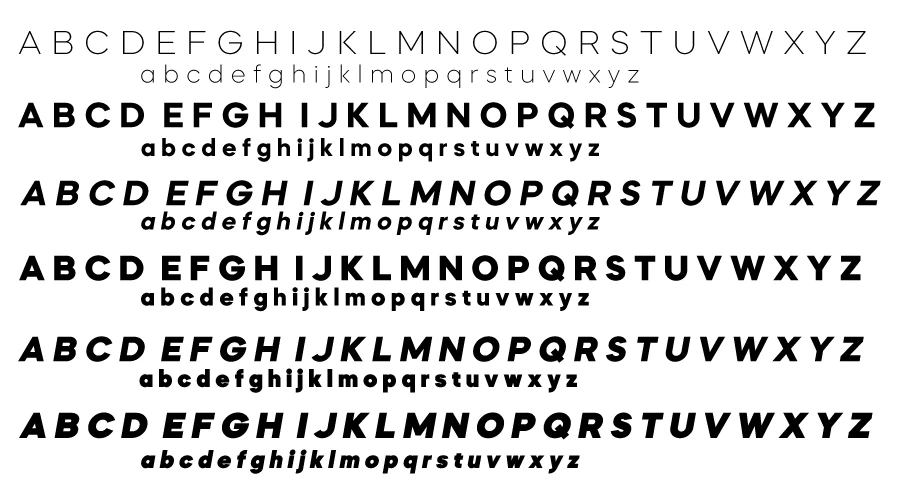
Today I’m going to show you a great Sans Serif font named Mazzard Family Font, which was last updated on September 4, 2019. Mazzard Family Typeface is a Personal Use Only! font with uppercase, lowercase, numeric, special characters, and alternates. Mazzard is a group of three geometric grotesques with varying x-heights (H, M, and L). It has a lot of language support, including Cyrillic, and a lot of different forms to choose from. This sans serif typeface will give your design a wonderfully natural feel.
Mazzard Family Font is ideal for logos, branding, invitations, stationery, wedding invitations logos, business cards, covers, t-shirts, social media posts, and more. It will also be utilized to generate a stunning image and text in a variety of colors and styles.